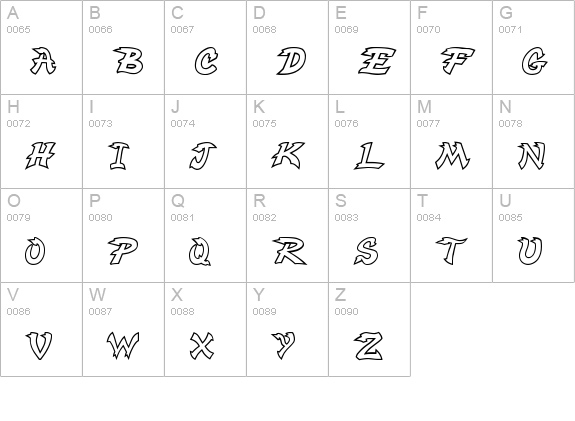
Richardson Brand Lightning Bolt font is a stunning and electrifying typeface that will make your designs come to life with its bold and dynamic appearance. This font is the perfect choice for those seeking a powerful and eye-catching look for their branding, logos, posters, and more. With its sharp edges and striking lightning bolt elements, Richardson Brand Lightning Bolt font demands attention and leaves a lasting impression. It exudes a sense of energy and excitement, making it ideal for projects that require a strong visual impact. One of the best things about Richardson Brand Lightning Bolt font is that it is free! Yes, you read that right, this incredible font is freely available to download at FontsMarket.com. Now you can add a touch of electrifying style to your designs without breaking the bank. Whether you're designing for a music festival, a sports event, or any project that needs a burst of energy, Richardson Brand Lightning Bolt font will bring your ideas to life in a bold and captivating way. Its versatility allows it to be used in both digital and print media, ensuring that your message will be conveyed with maximum impact. So don't miss out on this fantastic opportunity to download Richardson Brand Lightning Bolt font for free at FontsMarket.com. Let your designs shine with the power of lightning and watch as they grab attention and leave a lasting impression on your audience.